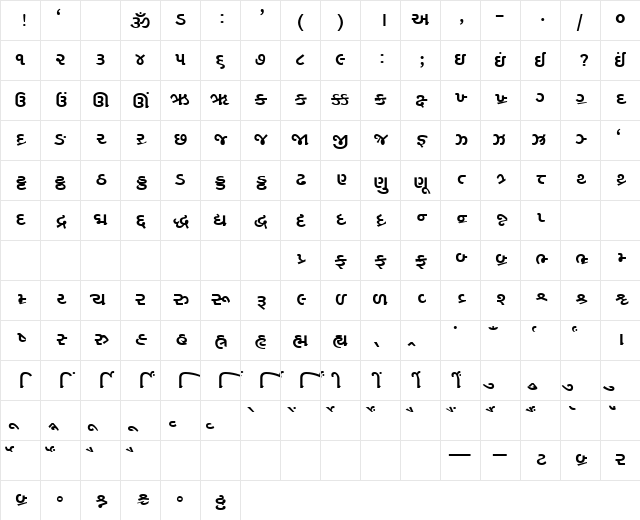
AkrutiGujArchana Normal Free Font
AkrutiGujArchana Normal
AkrutiGujArchana Family
AkrutiGujArchana Normal
Design Context for AkrutiGujArchana
AkrutiGujArchana is a composed and adaptable typeface that performs quietly and consistently across a wide range of design contexts.